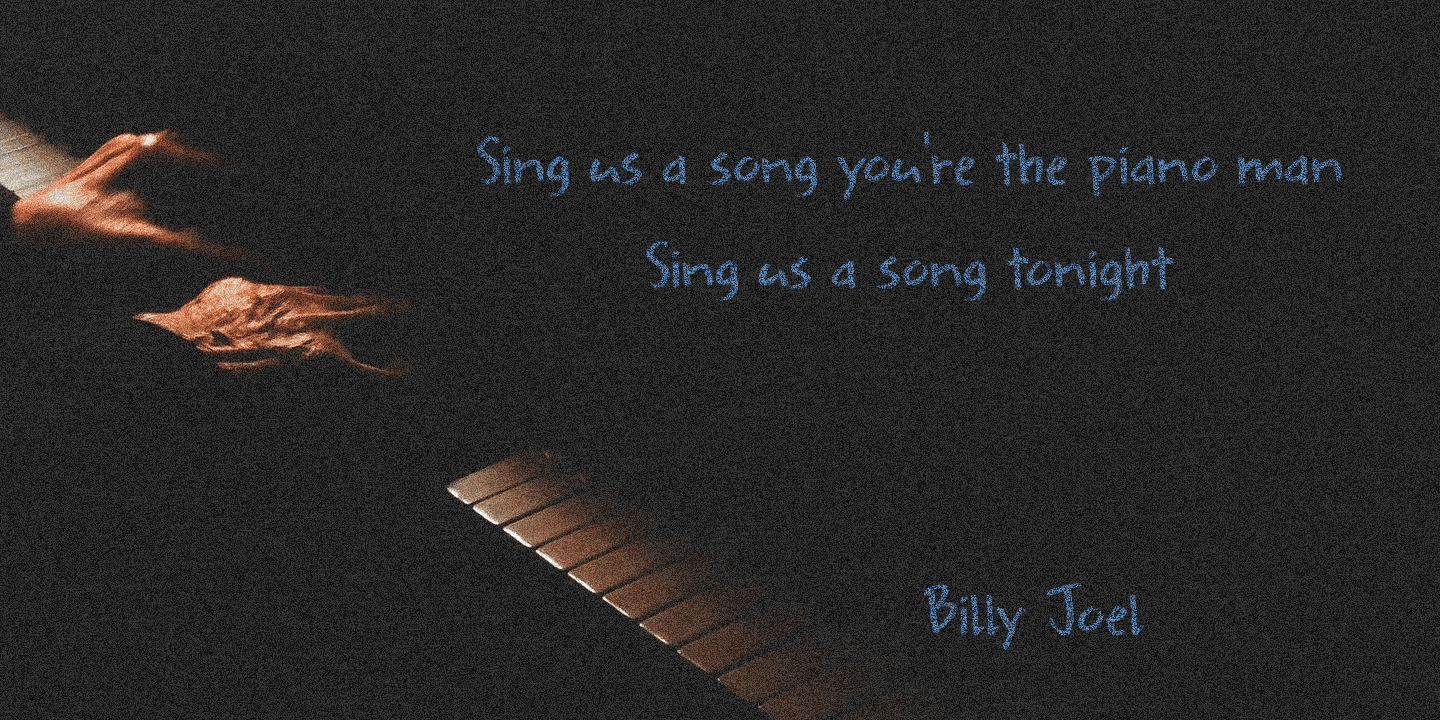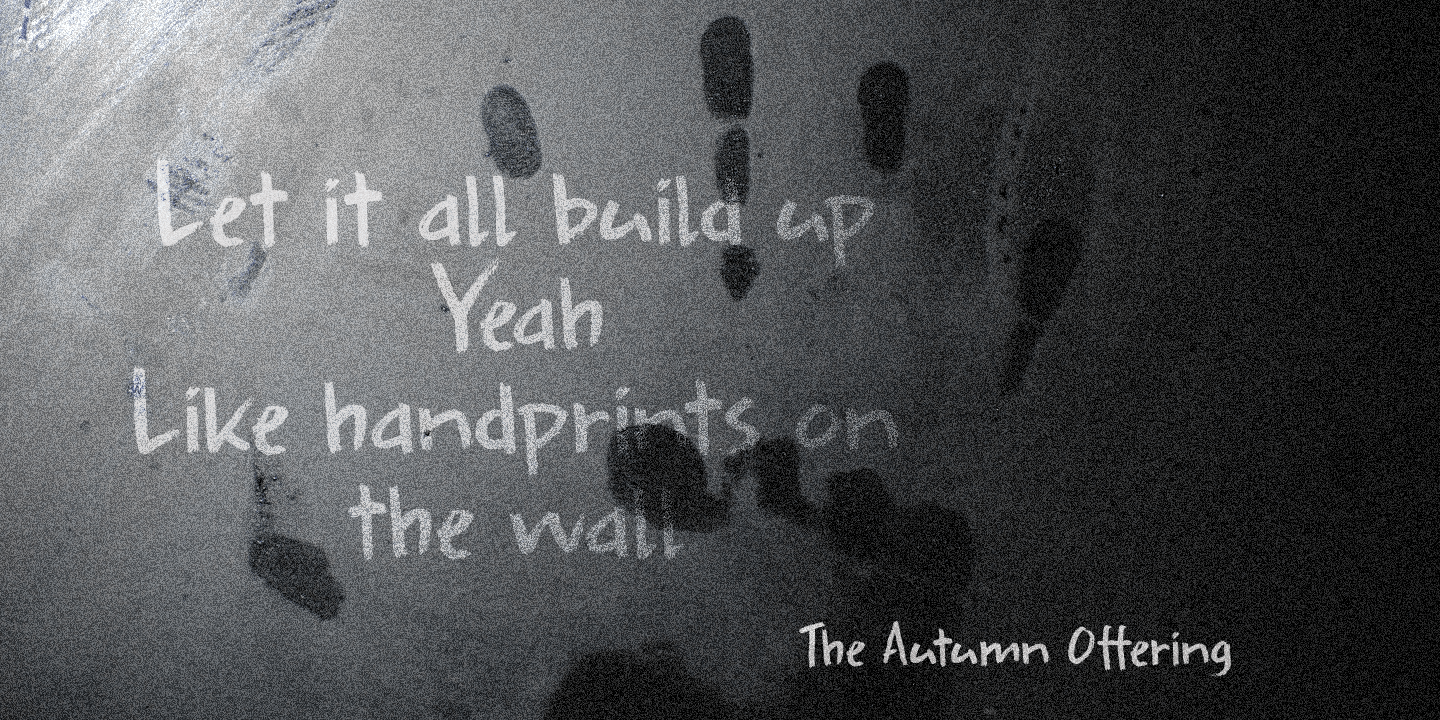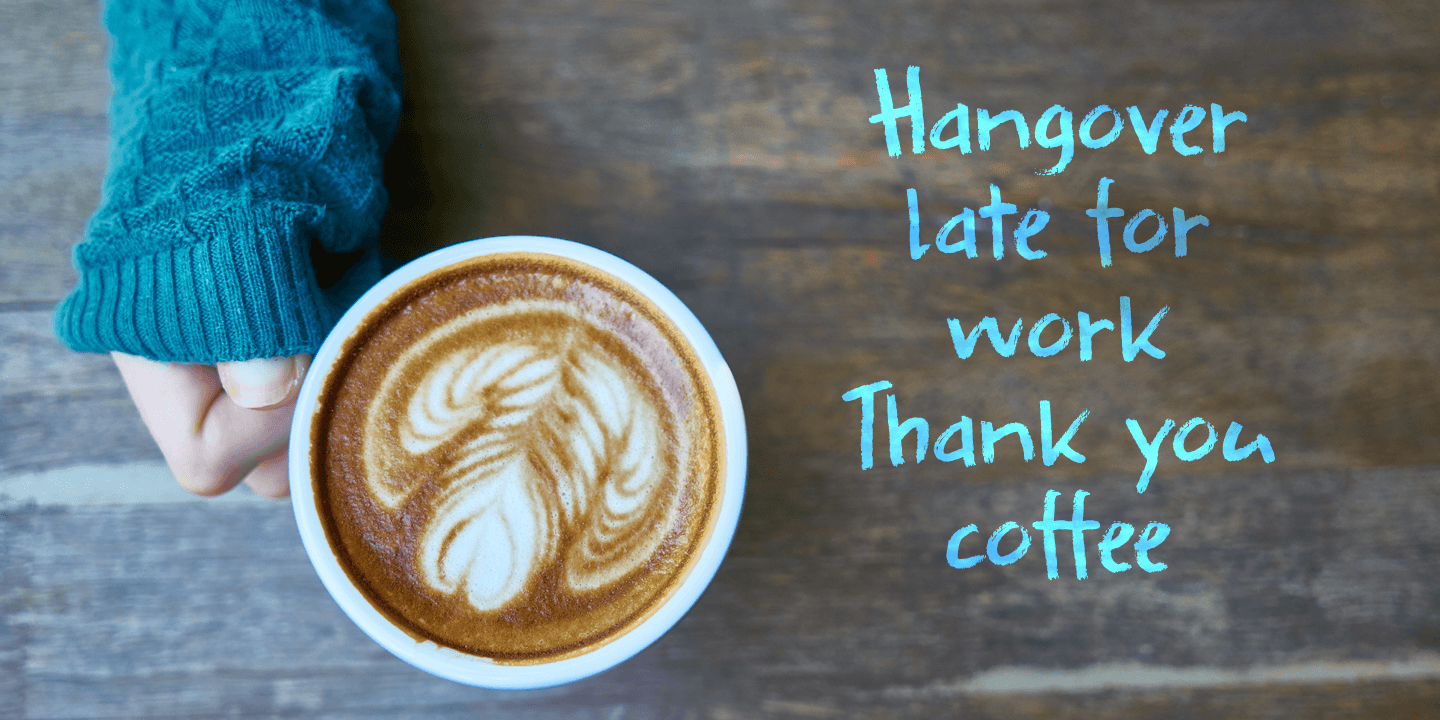
Splinterhand
About Splinterhand
No, I did not have a splinter in my hand when I came up with the name for this font. It sounded right, so I used it! Splinterhand is a script font made with an almost dried out marker pen. It comes with a whole bunch of diacritics and it can be used for…